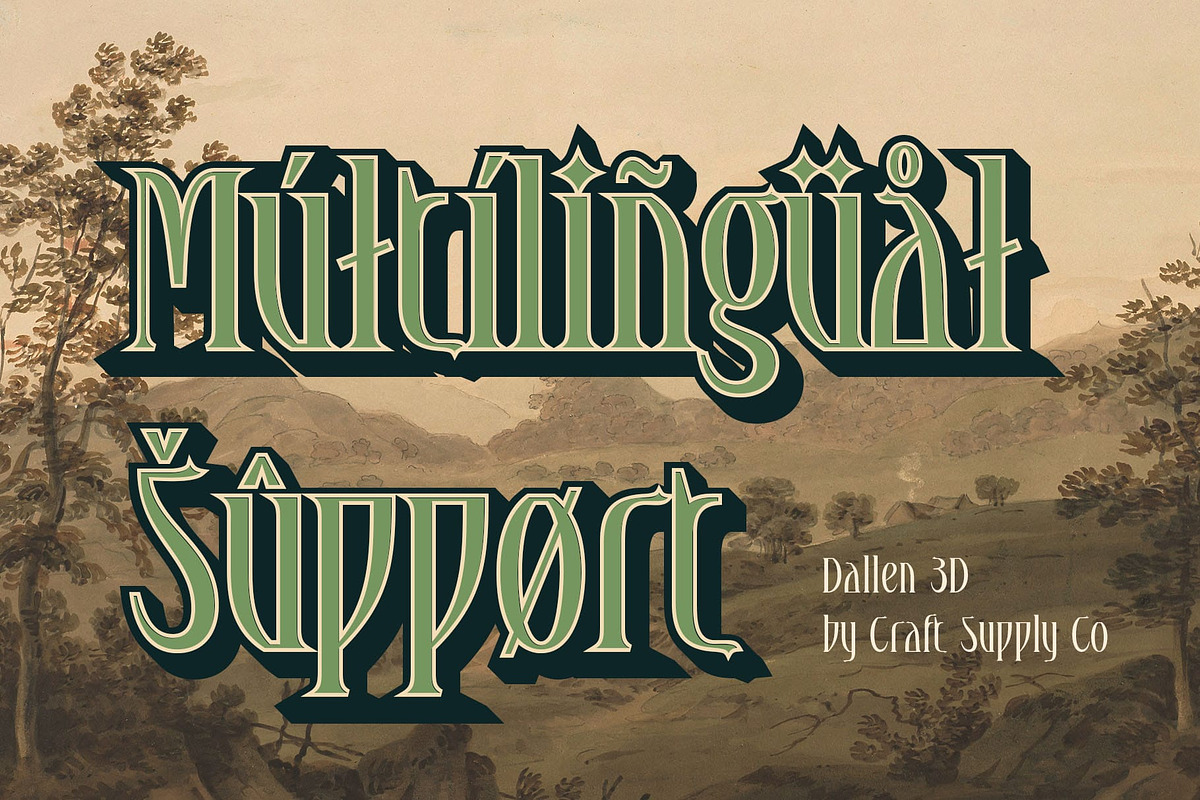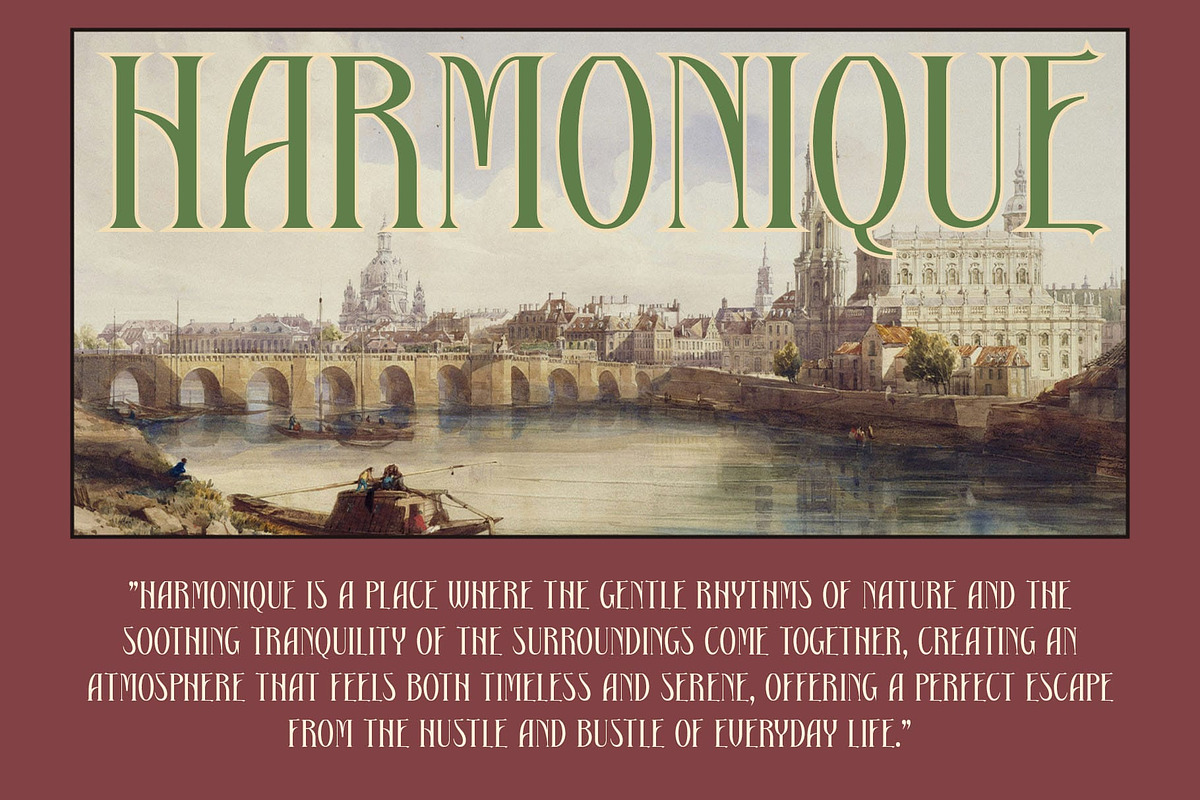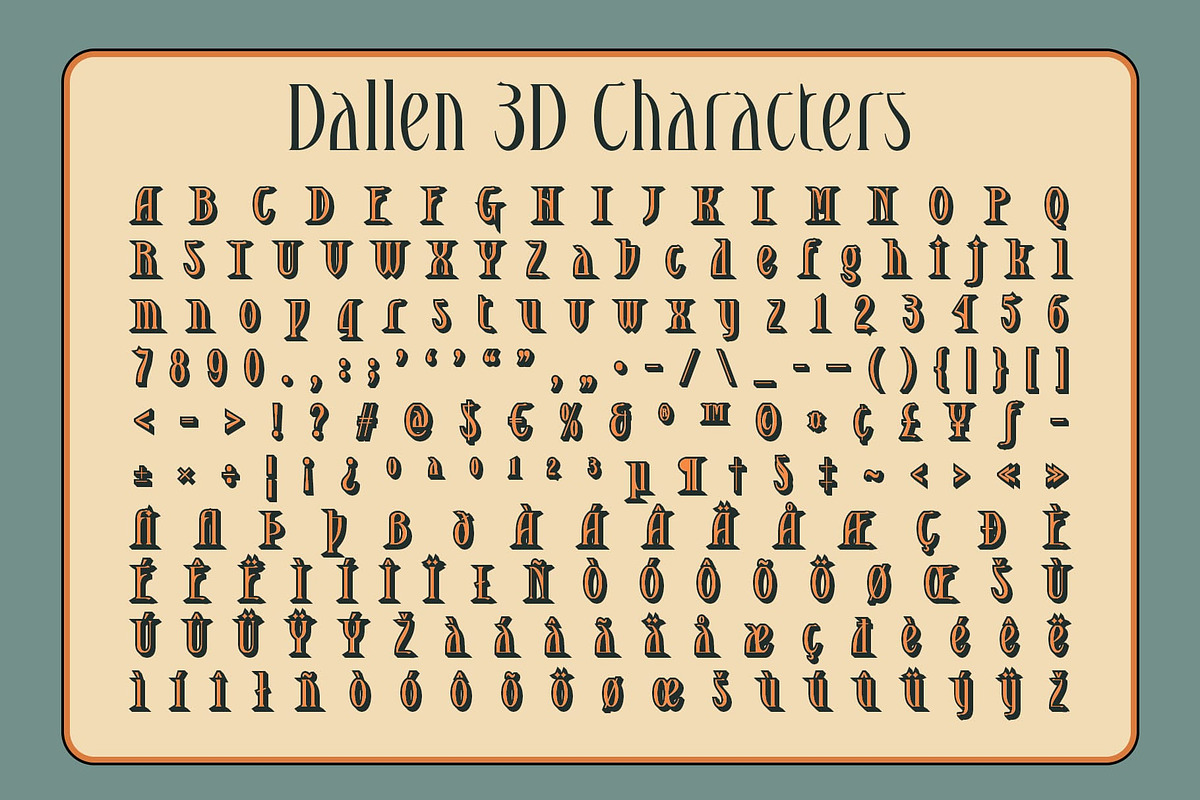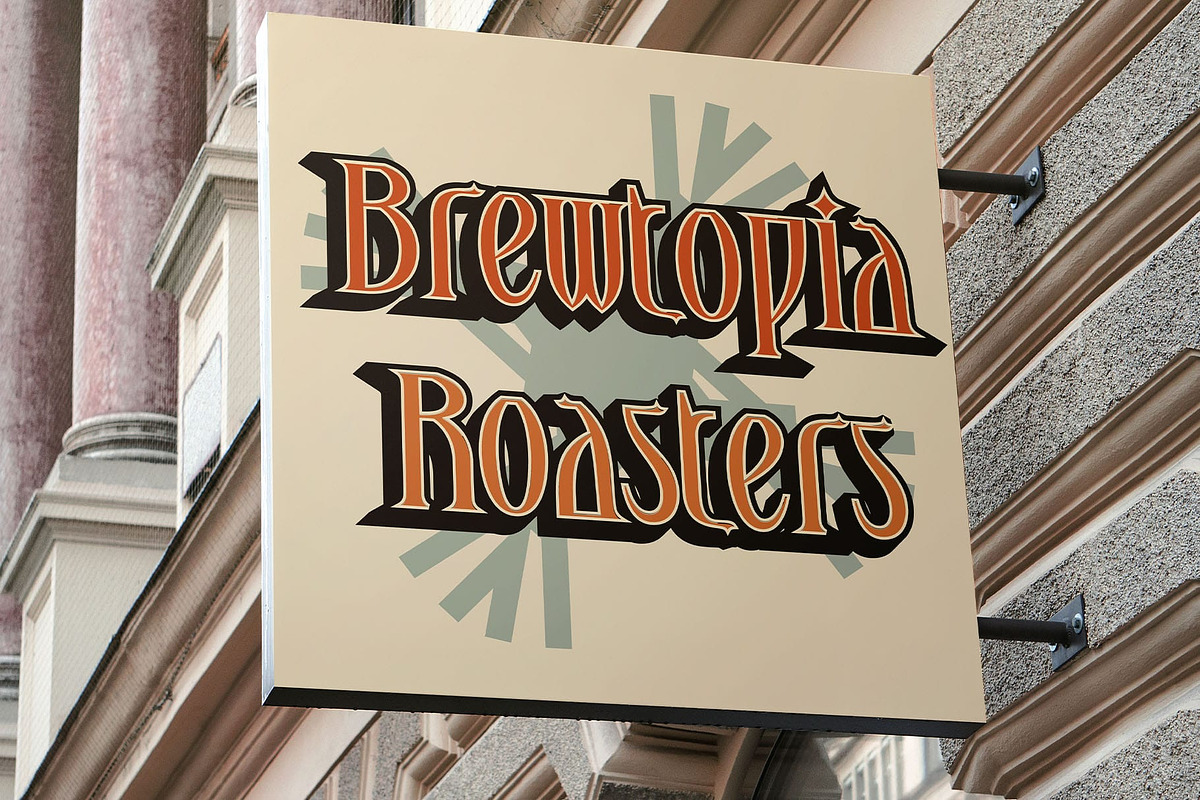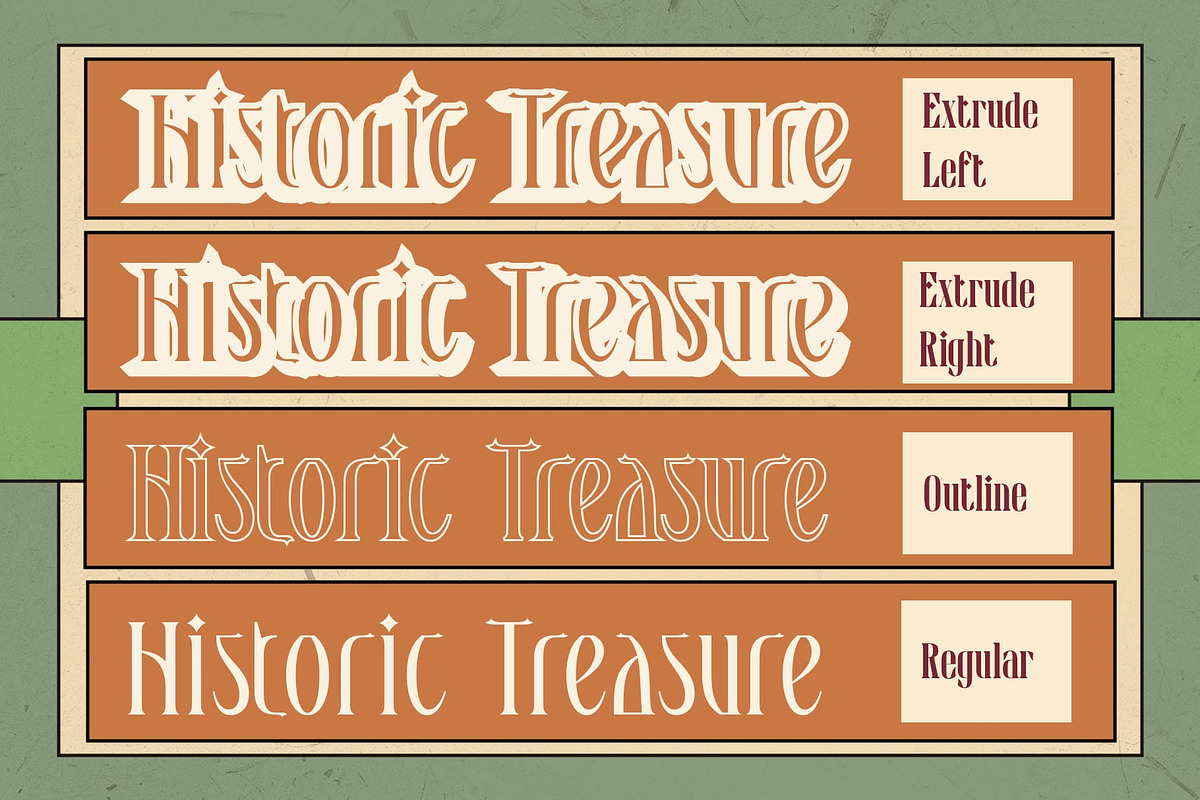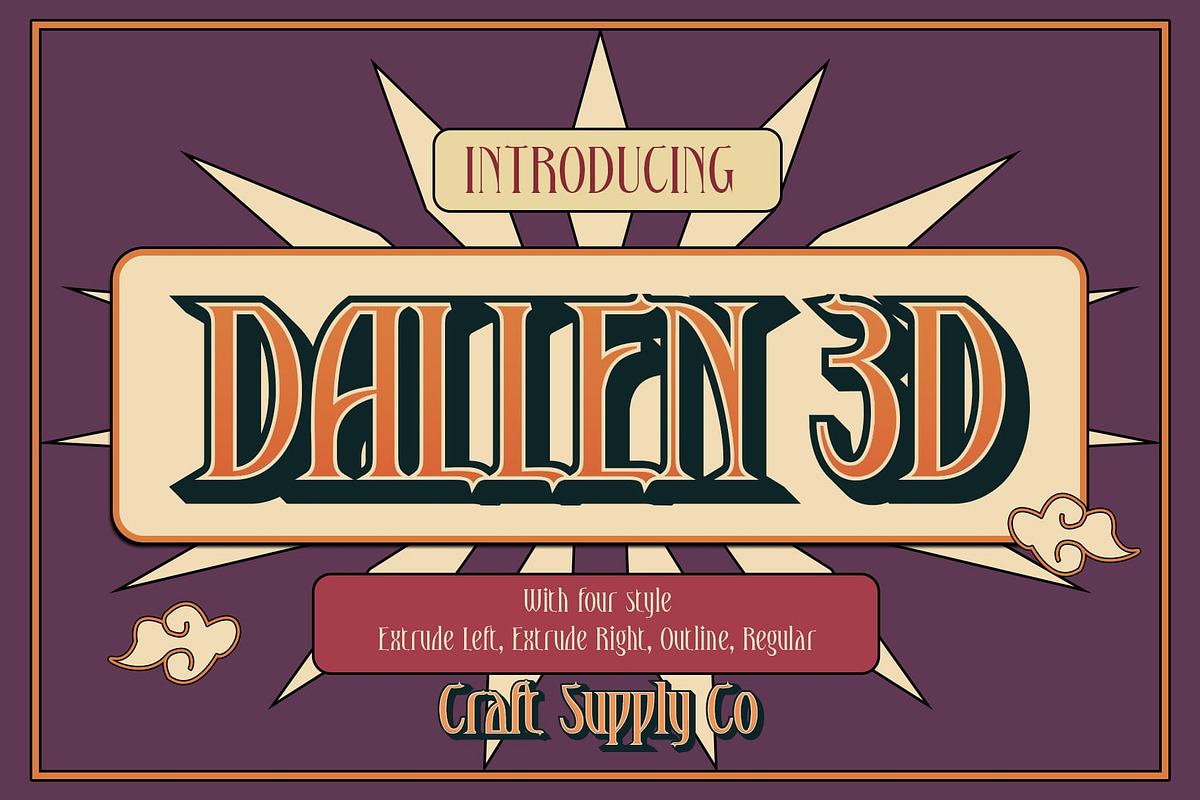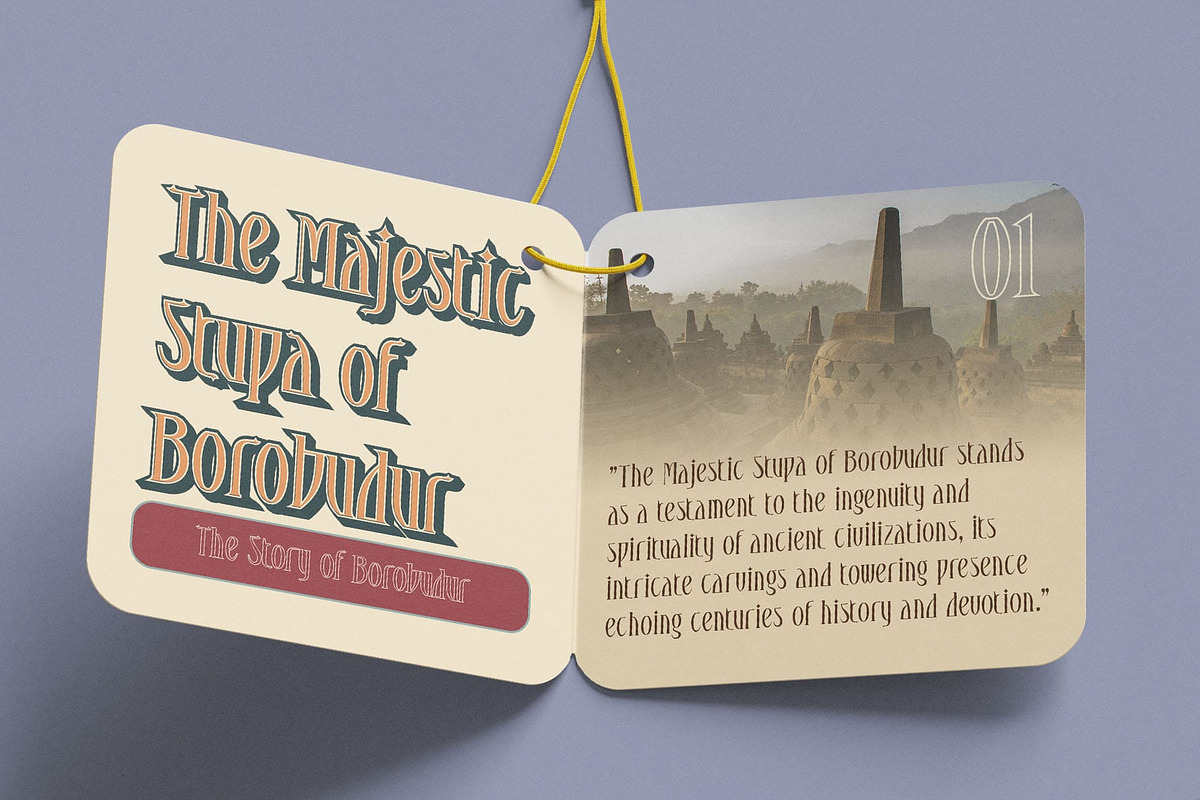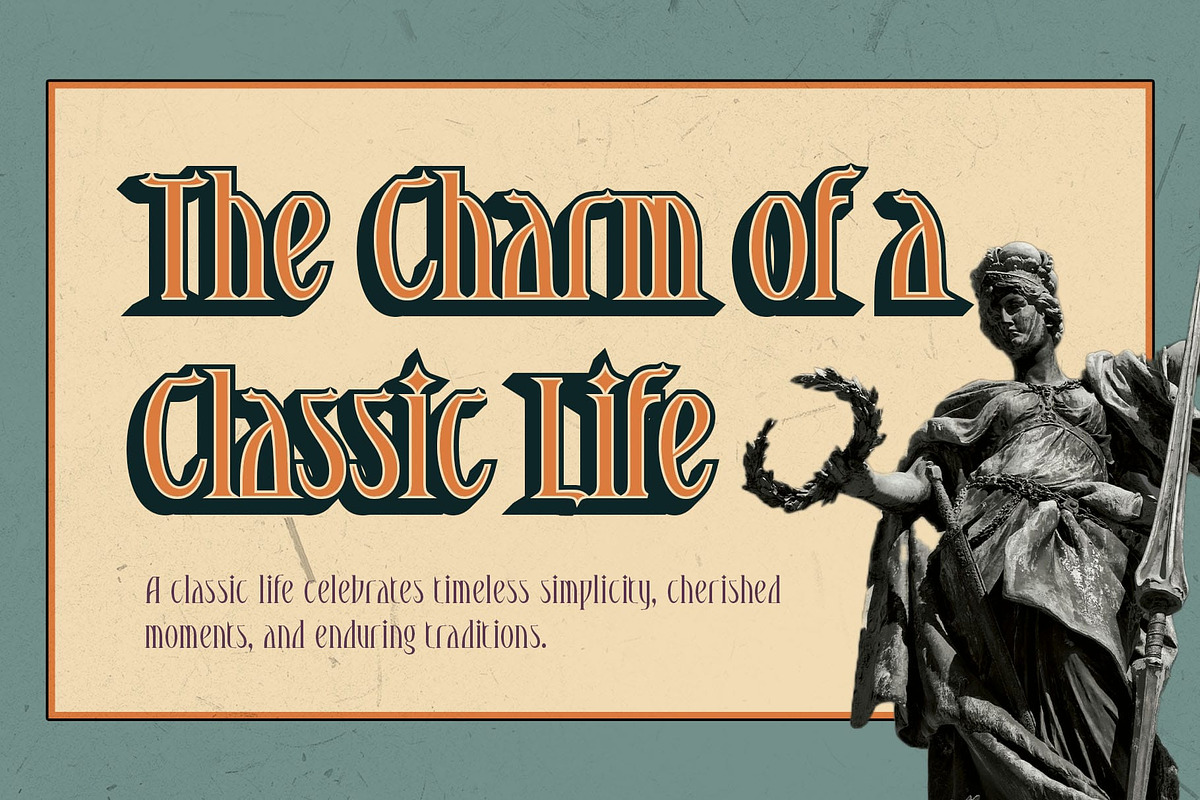
Dallen 3D
Dallen 3D Font: Where Tradition Meets Modern Depth
Modern Serif Font with Classic Elegance Dallen 3D is a modern serif font that combines the timeless sophistication of classic serif forms with the bold visual appeal of a 3D effect. The elegant serifs provide a sense of refinement and dignity, perfect for designs aiming to evoke a feeling of luxury and prestige. The combination of traditional structure with modern styling makes this font an excellent choice for projects that demand a sense of class and authority, such as high-end branding, editorial content, and luxury design work.
Captivating 3D Effect for Depth and Visual Impact What truly sets Dallen 3D apart is its striking 3D effect, which adds a layer of depth and dimensionality to the classic serif design. The effect creates a sense of movement and intrigue, making the font appear to come to life on the page. This visual intensity ensures that your text stands out, elevating your design to a more contemporary and dynamic level while retaining its sophisticated charm.
Perfect for Premium Branding and Editorial Headlines Dallen 3D is the perfect choice for designs that require both elegance and modern impact. Whether it’s used for high-end logos, editorial headlines, or luxury product branding, the font’s combination of traditional serif style and modern 3D depth makes it a standout choice.
- Dallen Regular
- Dallen Outline
- Dallen Extrude Right
- Dallen Extrude Left